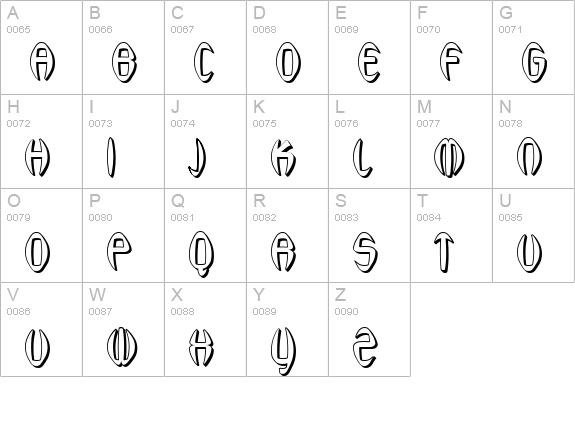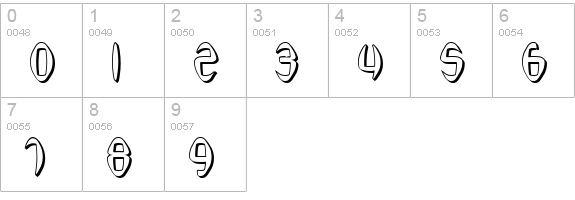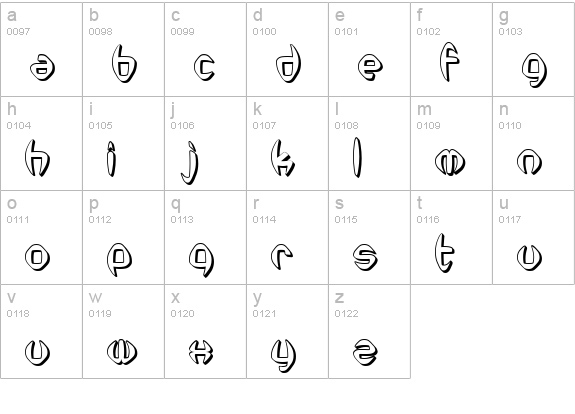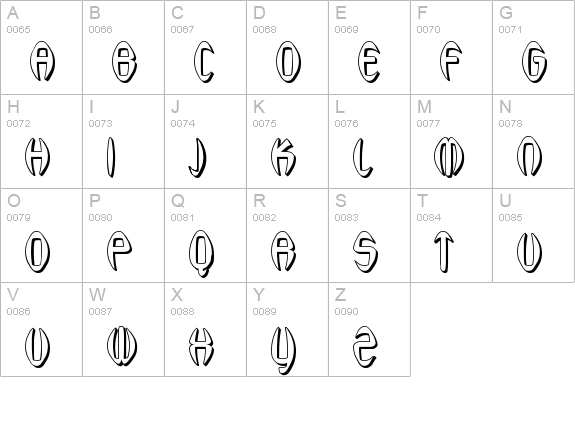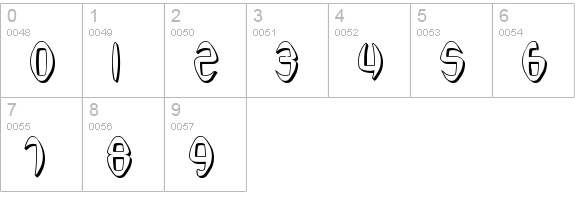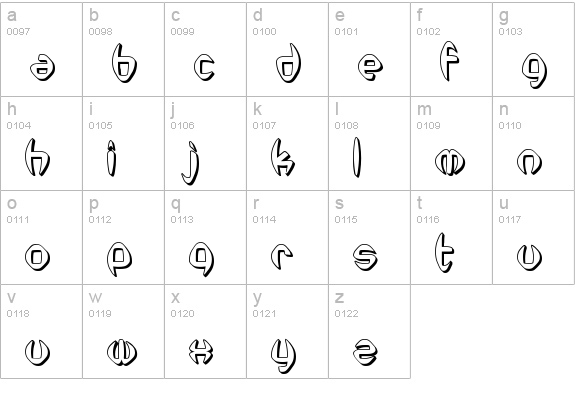
SF Synthonic Pop Shaded Font Details
SF Synthonic Pop Shaded font is a stunning display font that combines the boldness of synthwave aesthetics with the sophistication of pop art. This unique typeface is perfect for creating eye-catching designs that demand attention and exude a futuristic vibe. With its intricate shadows and carefully crafted letterforms, SF Synthonic Pop Shaded font adds depth and dimension to any project. Whether you're designing album covers, posters, logos, or advertisements, this font will effortlessly elevate your designs to new heights. One of the best things about SF Synthonic Pop Shaded font is that it is freely available to download at FontsMarket.com. This means that you can add this incredible font to your collection without spending a dime. It's a fantastic opportunity to enhance your design arsenal, without breaking the bank. The versatility of SF Synthonic Pop Shaded font allows it to be used in a wide range of design projects. Its bold and vibrant style makes it particularly suitable for music-related designs, capturing the essence of the synthwave and pop art movements. However, its unique aesthetic can also bring a touch of modernity to branding projects, editorial layouts, and more. Don't miss out on the opportunity to enhance your designs with the striking SF Synthonic Pop Shaded font. Download it for free at FontsMarket.com and let your creativity soar to new heights.